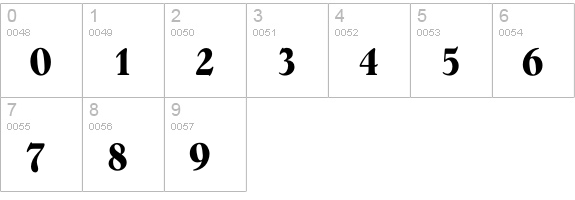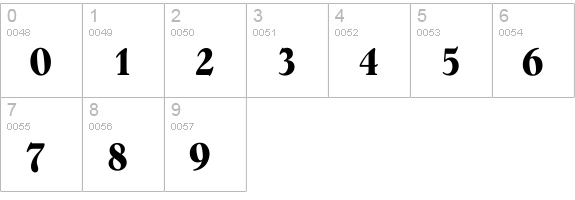
BelliniBoldCondensed Font Details
BelliniBoldCondensed is a striking and elegant font that exudes confidence and modernity. With its bold and condensed design, this typeface is perfect for making a statement in any project or design. The strong lines and sleek curves of BelliniBoldCondensed create a sophisticated and refined look that is sure to capture attention. What sets BelliniBoldCondensed apart is not just its stylish appearance, but also the fact that it is available for free download at FontsMarket.com. This means that you can easily access this high-quality font without any cost, making it a valuable addition to your font library. Whether you're working on branding, advertising, or any other creative project, BelliniBoldCondensed is a versatile font that will enhance your work with its bold and impactful presence.